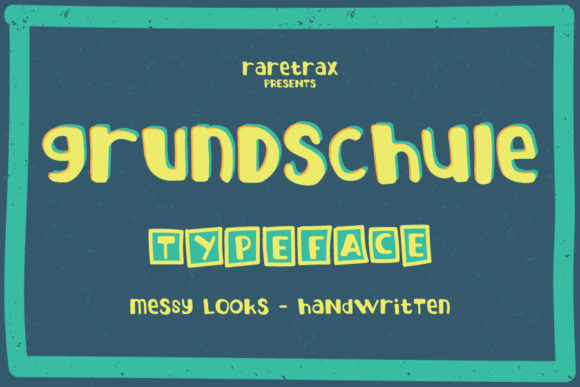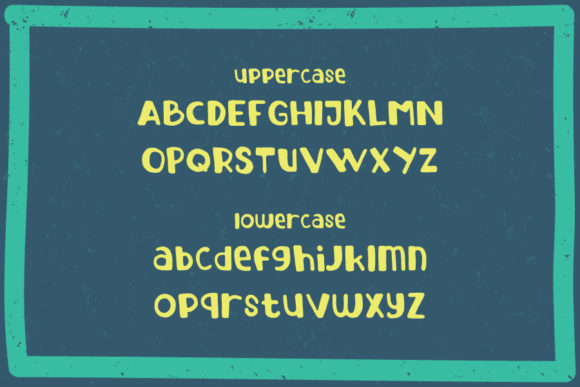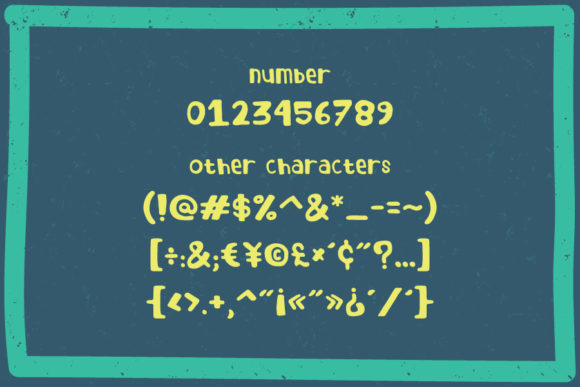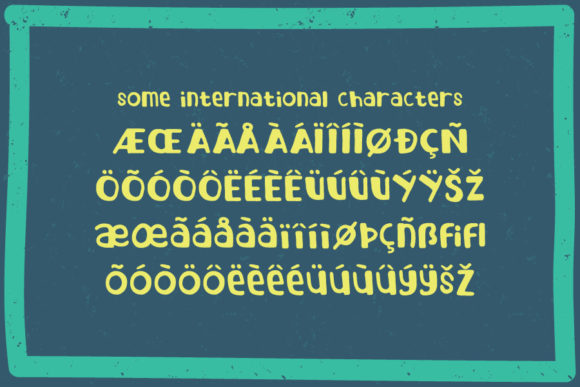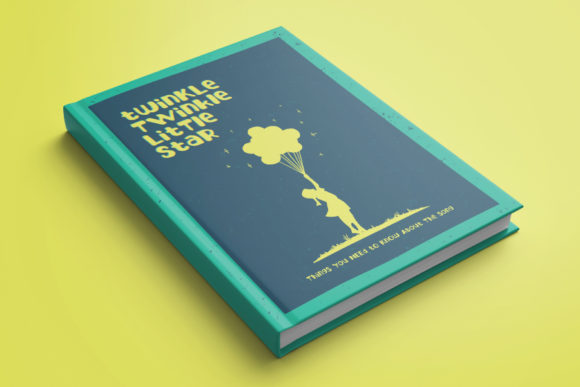
Grundschule Font
About Grundschule Font
The Grundschule is an amazing handwritten font. It was sprinted by schools and kids and emphasizes on its messy looks to imitate children’s writing.
It’s suitable for birthday invitations, flyers, posters, credit titles and much more.